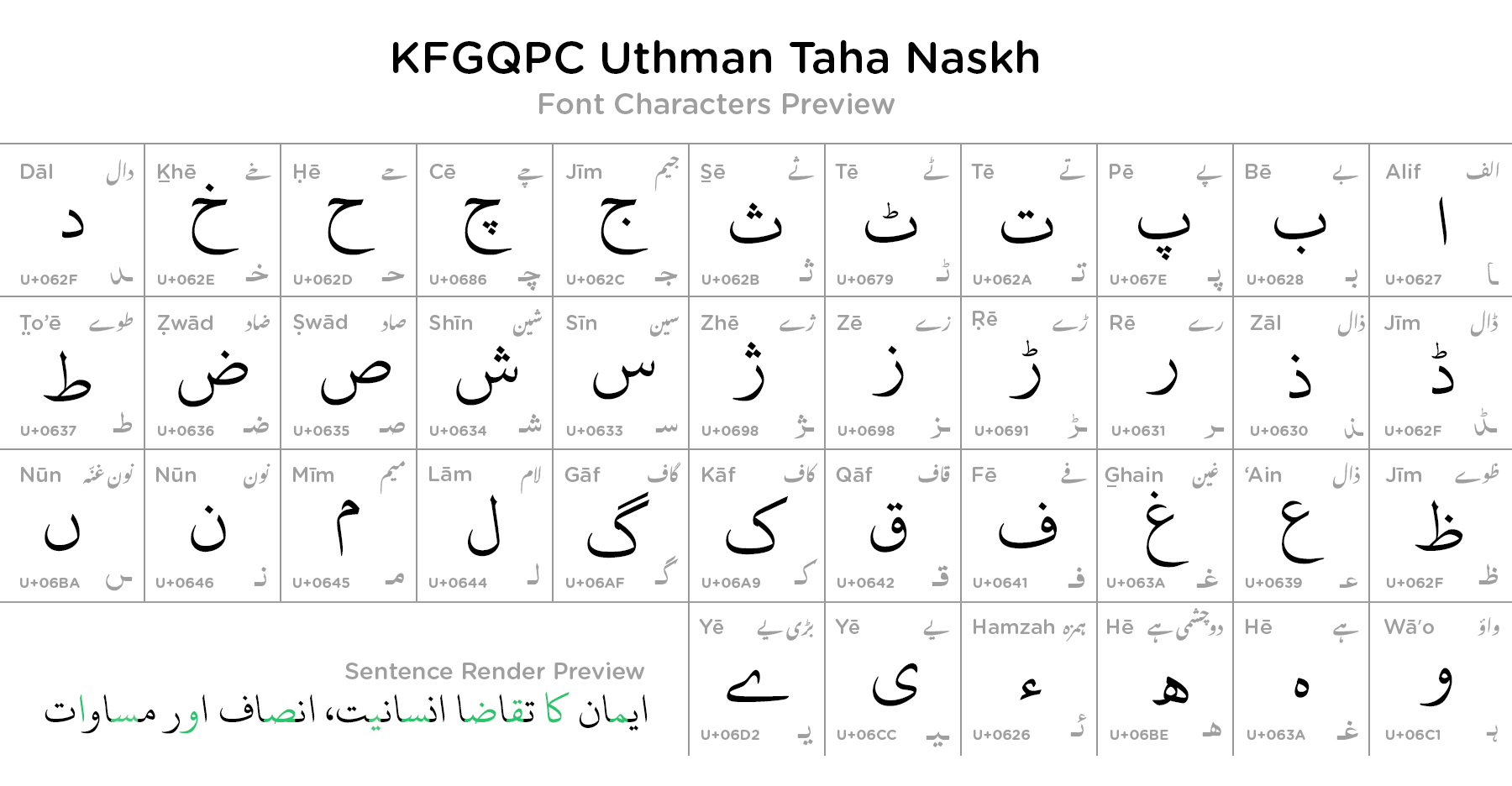
KFGPQC Uthman Taha Naskh, designed by Ishfaq Niazi and released by the IT Department on January 30, 2016, represents a blend of traditional Arabic calligraphy with modern design principles. With its linear style and clear outlook, this font offers a refined and professional appearance suitable for a variety of applications. Moreover, it offers 310 characters and a glyph count of 628 to fulfill different design requirements effortlessly. It also supports different languages, including Arabic, Urdu, Turkish, and more, increasing its appeal further. Its thin and dynamic thickness and delicate strokes ensure high legibility, making it ideal for easily conveying lengthy texts.